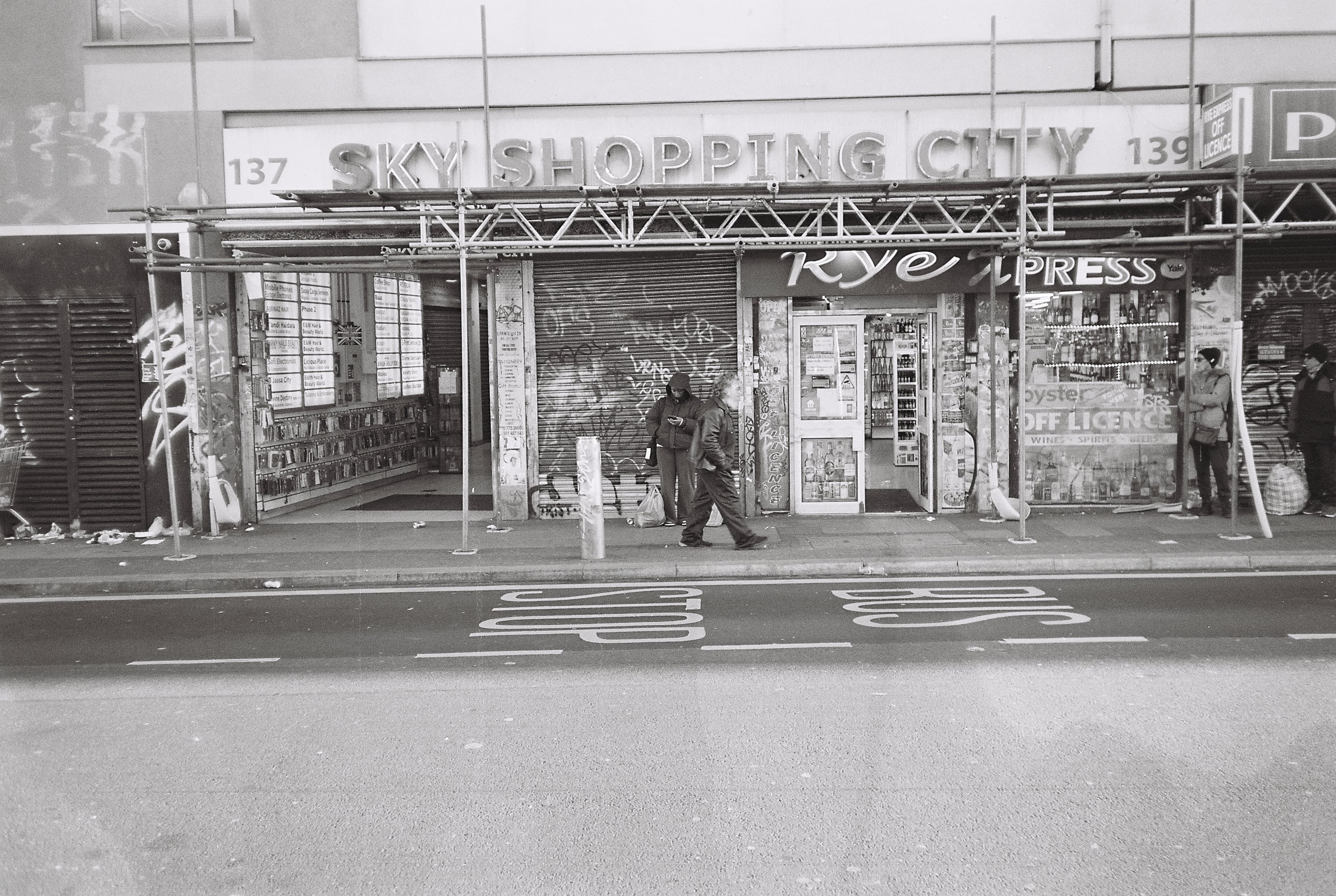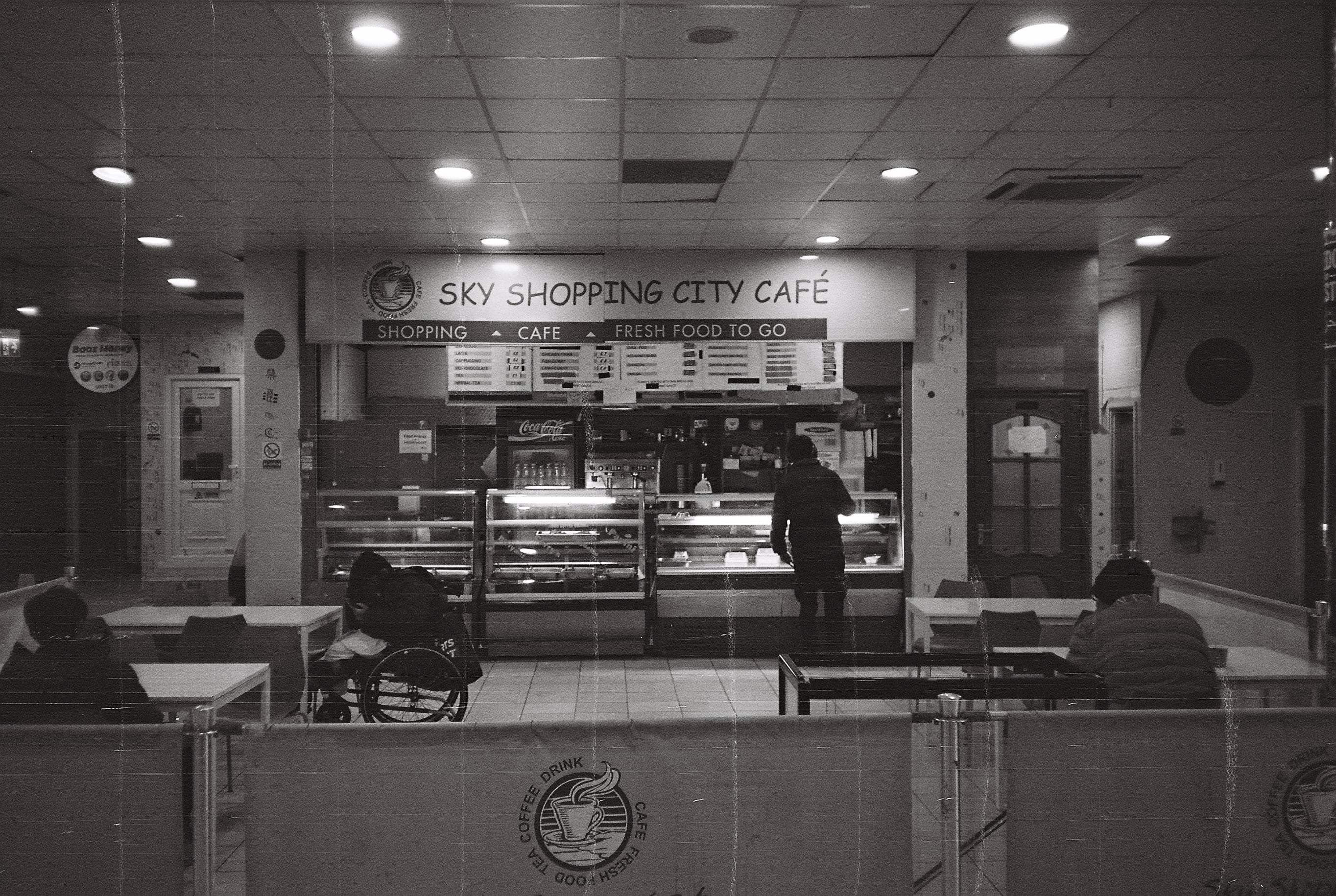
Hactiff is a type face based on Sky Shopping City on Rye Lane, Peckham, a small shopping centre that was built in the late 1970s - early 80s. Hactiff is inspired by the slab serif fronts of old newspapers and market stalls and the graffiti that emerges from Peckham's diverse, artistic and energetic spirit. The serfs In Hactiff are characterful and fun, with each capital letter having its own personality. The lowercase set is more subdued, allowing for Hactiff to be used as both a display font and a text font if required.